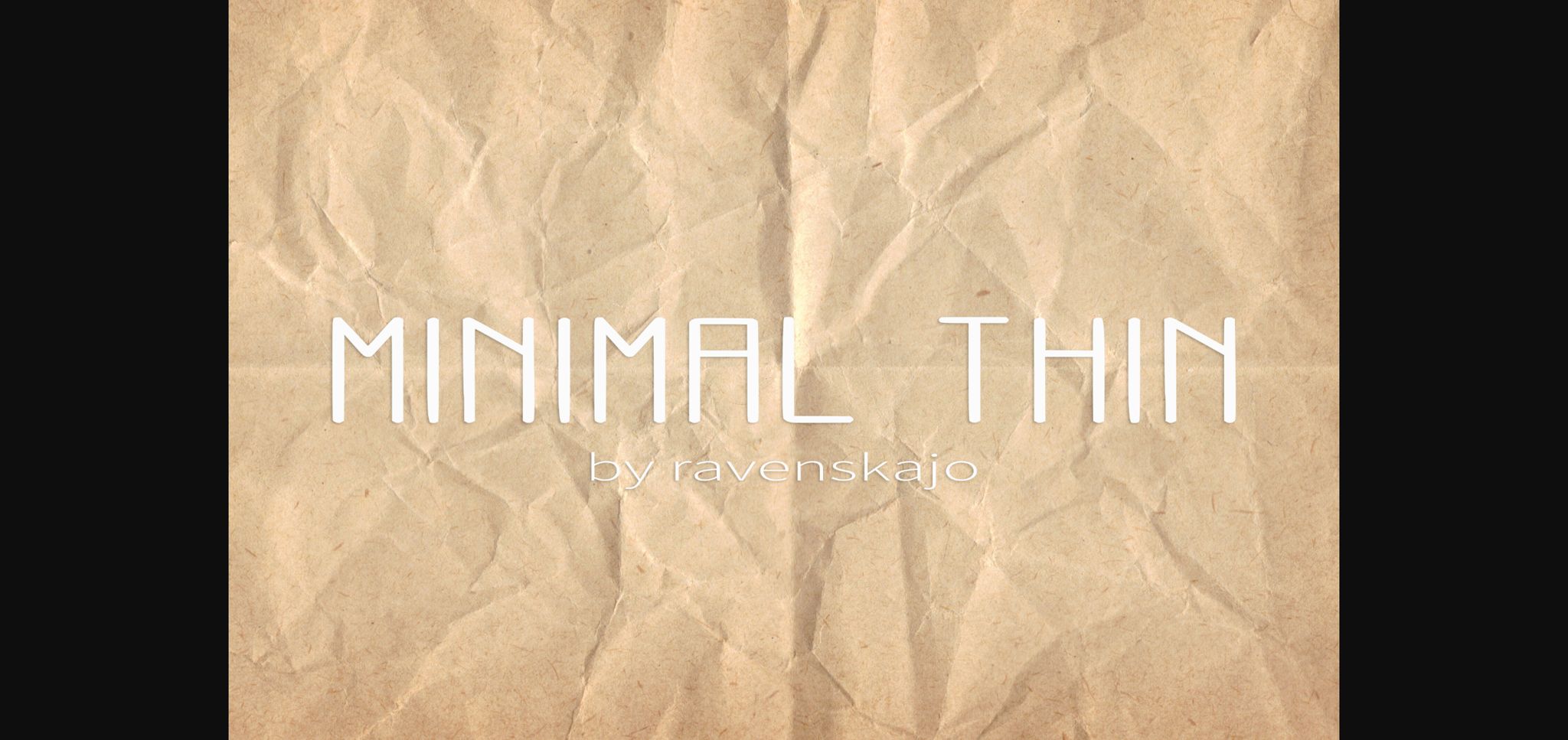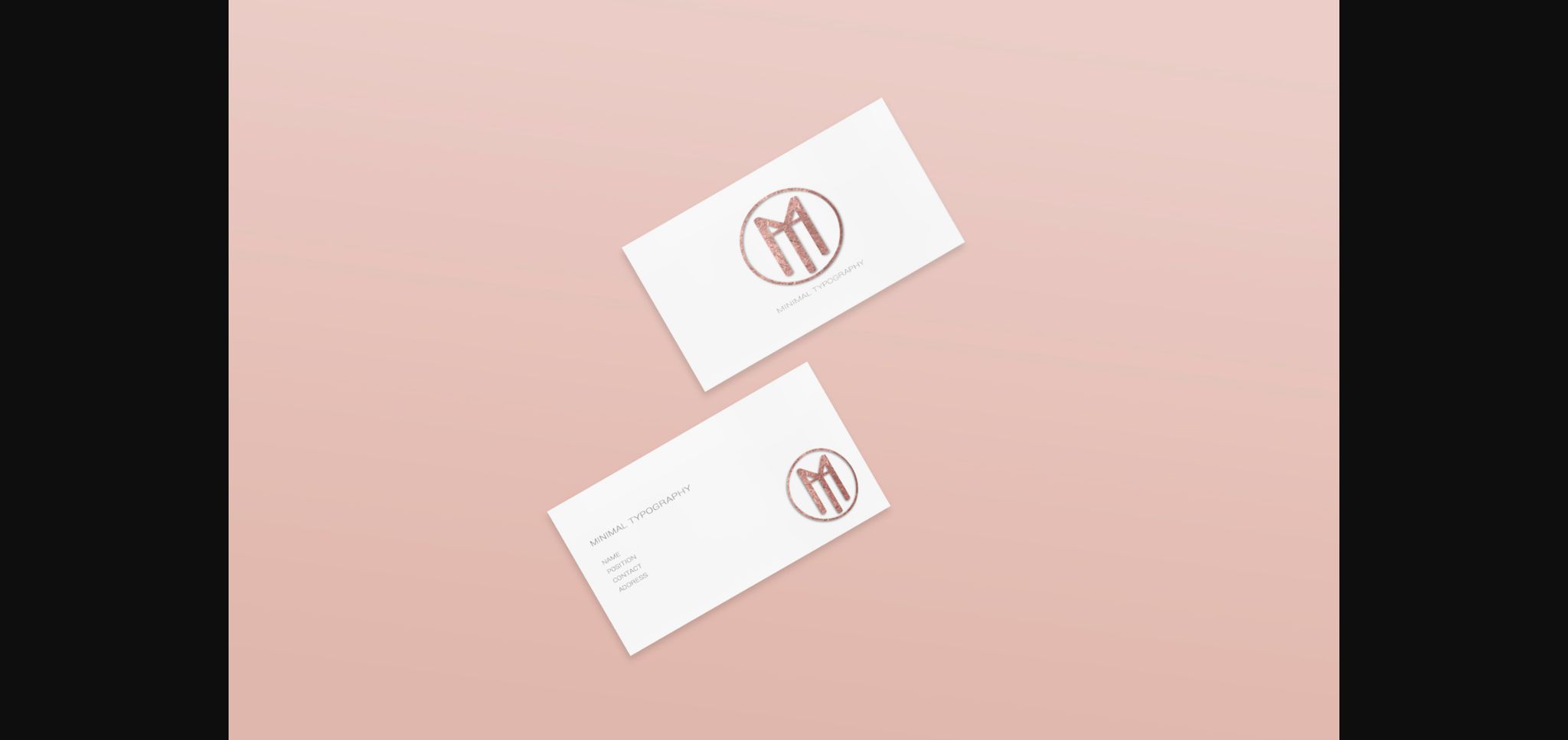
Minimal Thin Font
About Minimal Thin Font
Minimal Thin is a simple and clean sans serif font. It features a minimalist and modern look that makes it perfect for logos, magazines, flyers, posters, book covers and more!